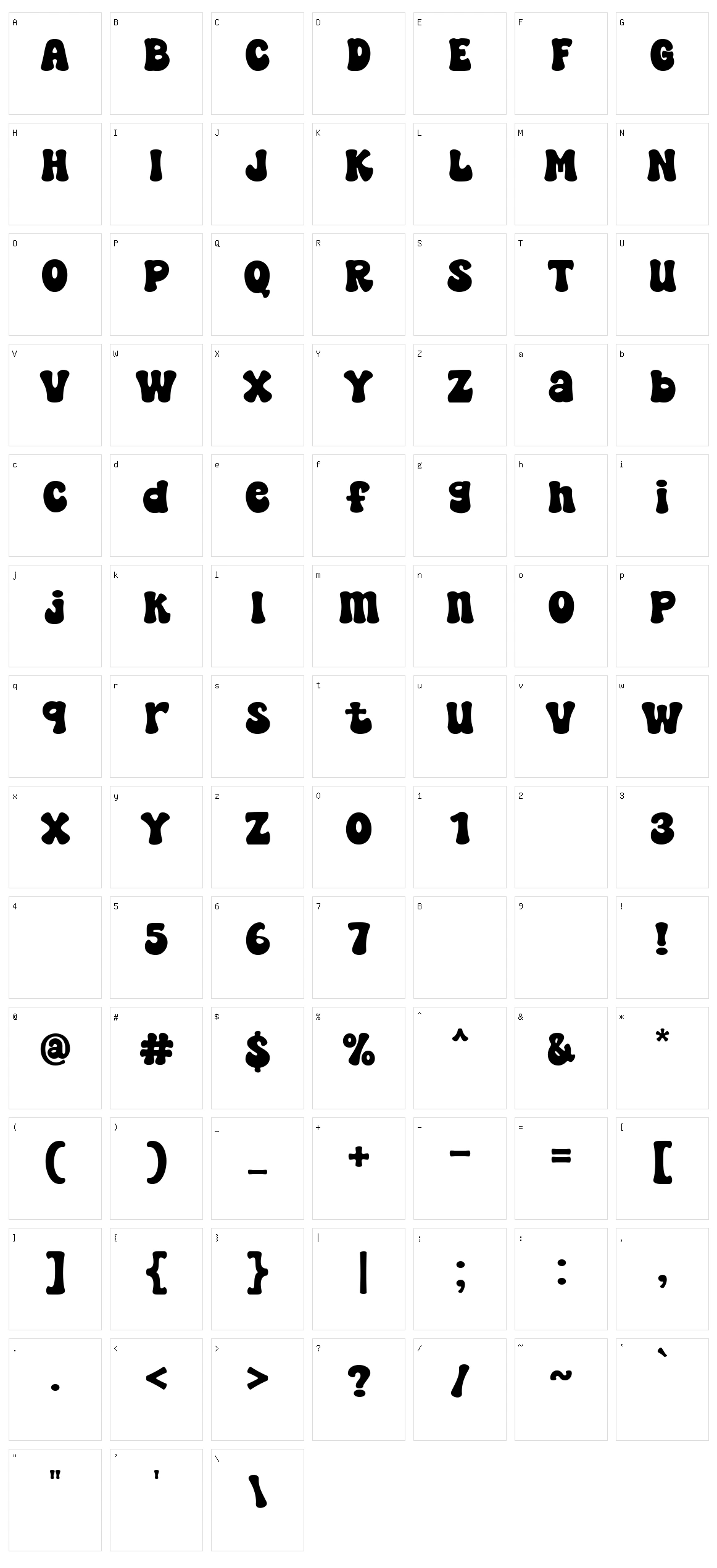
Super Spicy: This font isn't just bold, it's a full-on flavor explosion! Inspired by the vibrant energy of retro design, Super Spicy takes classic letterforms and throws in a dash of quirky charm.